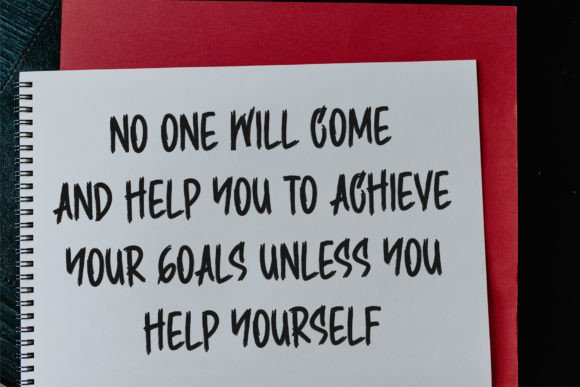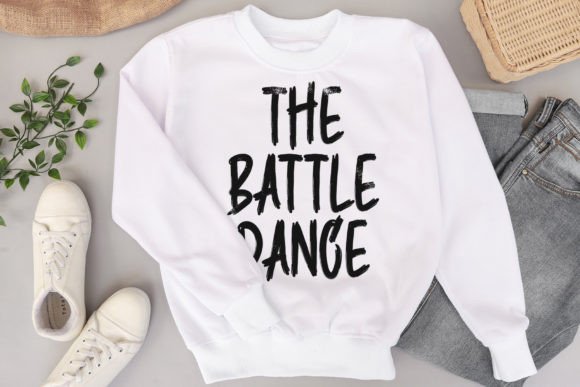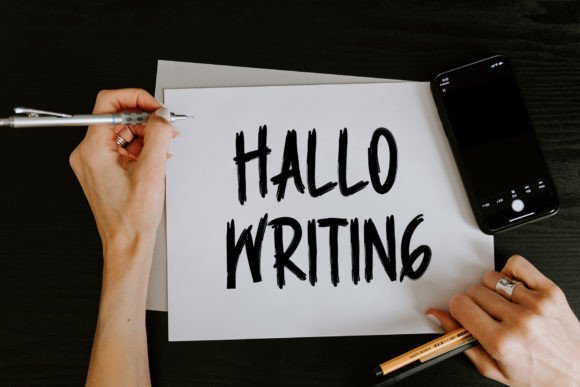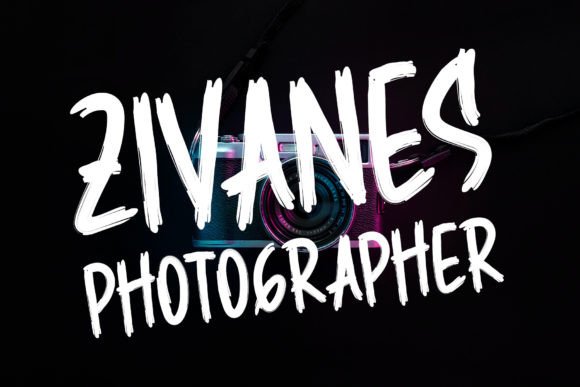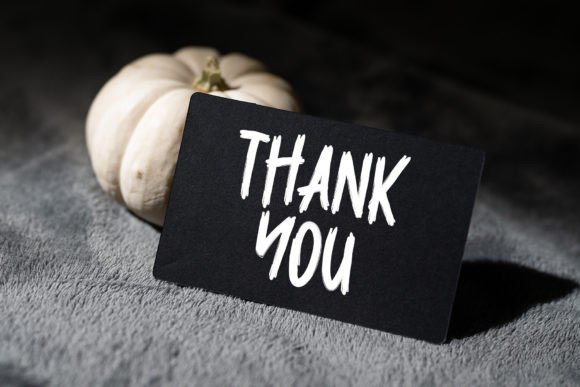
Introducing Handshow Font: The Ultimate Playful Display Font
Are you tired of using the same old fonts in your designs? Do you want to add a touch of playfulness and whimsy to your creative projects? Look no further than Handshow Font, an incredibly playful handwritten font that’s sure to become your new favorite. In this article, we’ll dive into the world of Handshow Font and explore its features, benefits, and uses.
What is Handshow Font?
Handshow Font is a display font that’s designed to bring a sense of fun and playfulness to your designs. With its unique and quirky handwritten style, this font is perfect for adding a personal touch to any project. Whether you’re working on a logo, branding materials, social media graphics, or even a website, Handshow Font is sure to make your designs stand out.
Features of Handshow Font
So, what makes Handshow Font so special? Here are just a few of its key features:
- Playful and whimsical: Handshow Font has a unique and playful style that’s sure to add a touch of personality to your designs.
- Handwritten style: This font has a beautiful, handwritten feel that’s perfect for creating a personal and approachable vibe.
- Display font: Handshow Font is designed specifically for display use, making it perfect for headlines, titles, and other attention-grabbing elements.
- Easy to read: Despite its playful style, Handshow Font is still easy to read, making it perfect for use in a variety of contexts.
Benefits of Using Handshow Font
So, why should you choose Handshow Font for your next design project? Here are just a few benefits of using this amazing font:
- Adds personality to your designs: Handshow Font is the perfect way to add a touch of personality and whimsy to your designs.
- Versatile: This font can be used in a variety of contexts, from logos and branding materials to social media graphics and website headers.
- Unique: With its unique and playful style, Handshow Font is sure to help your designs stand out from the crowd.
Uses for Handshow Font
So, what can you use Handshow Font for? The possibilities are endless! Here are just a few ideas to get you started:
- Logos and branding materials: Use Handshow Font to create a unique and memorable logo or branding materials for your business.
- Social media graphics: Add a touch of personality to your social media graphics with Handshow Font.
- Website headers: Use Handshow Font to create eye-catching website headers that draw visitors in.
- Invitations and announcements: Handshow Font is perfect for creating playful and whimsical invitations and announcements.
Tips for Using Handshow Font
Here are a few tips for getting the most out of Handshow Font:
- Use it sparingly: Because Handshow Font is a display font, it’s best to use it sparingly to add emphasis and personality to your designs.
- Pair it with other fonts: Handshow Font pairs well with a variety of other fonts, so don’t be afraid to experiment with different combinations.
- Experiment with colors: Handshow Font looks great in a variety of colors, so don’t be afraid to get creative and try out different color schemes.